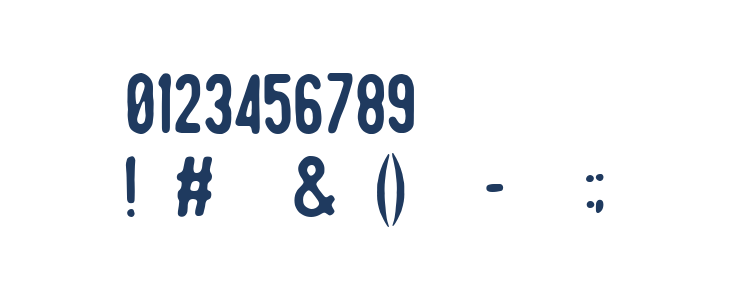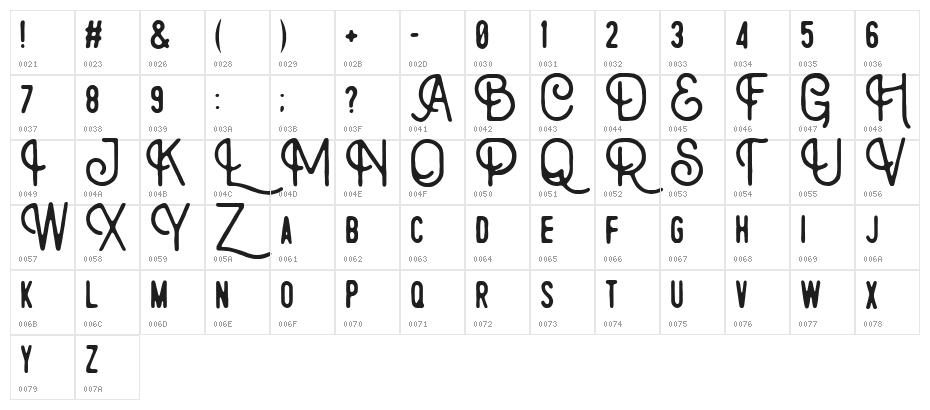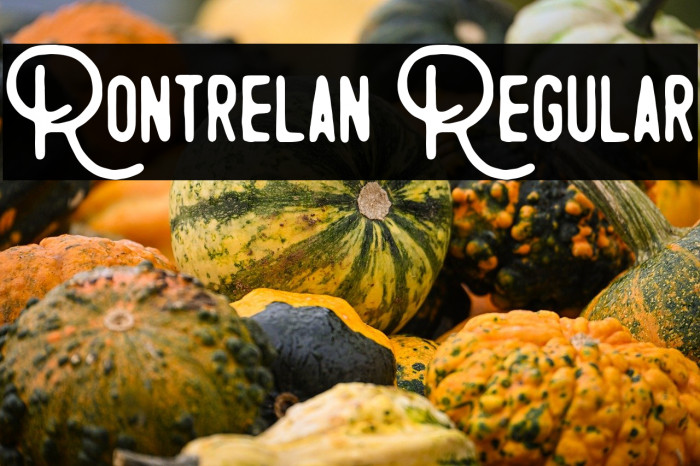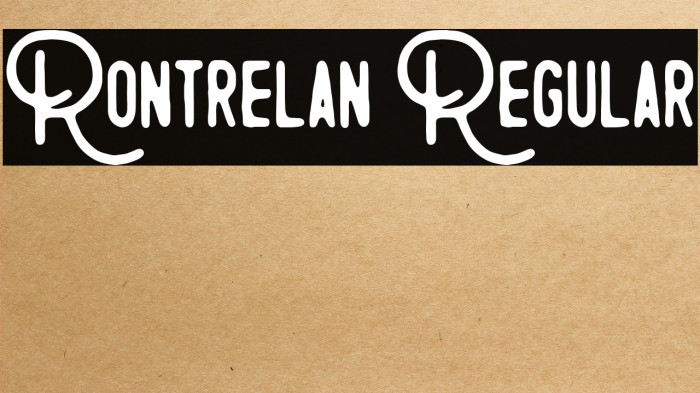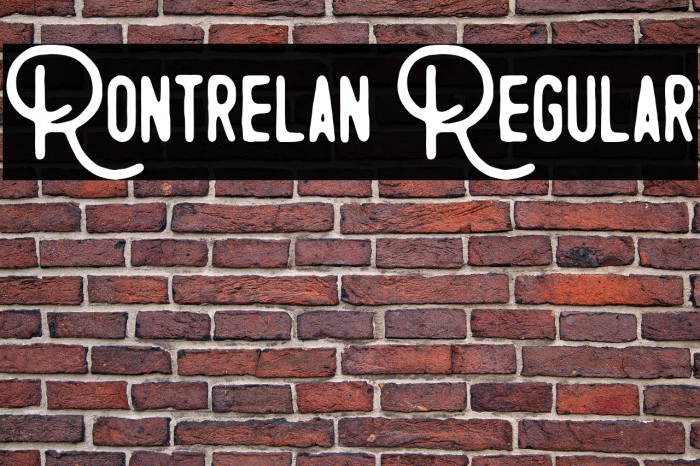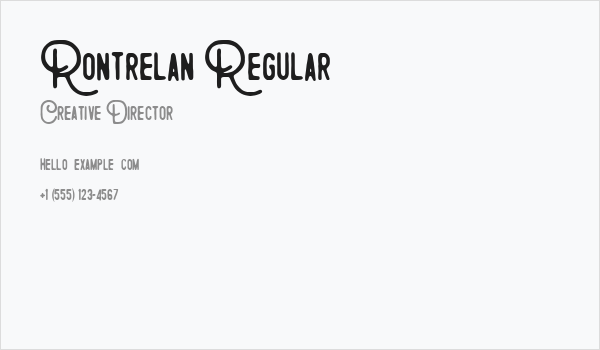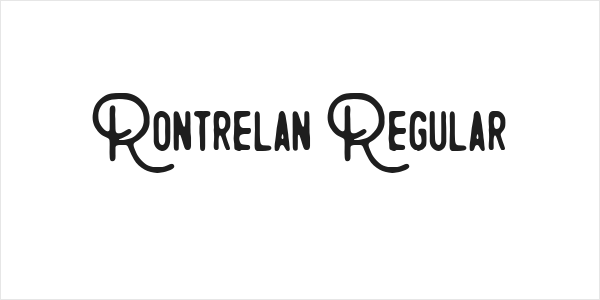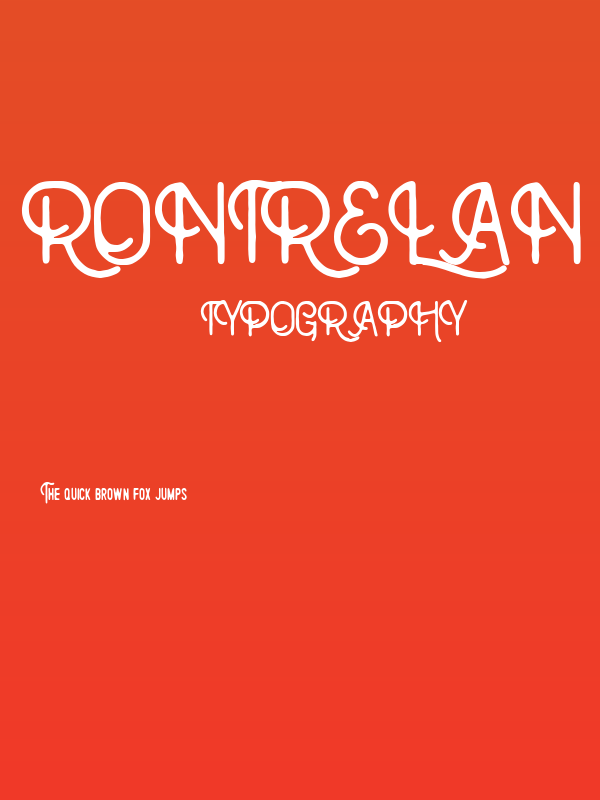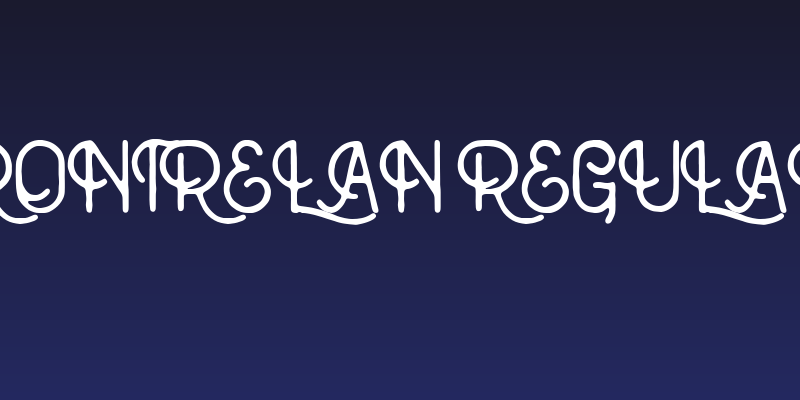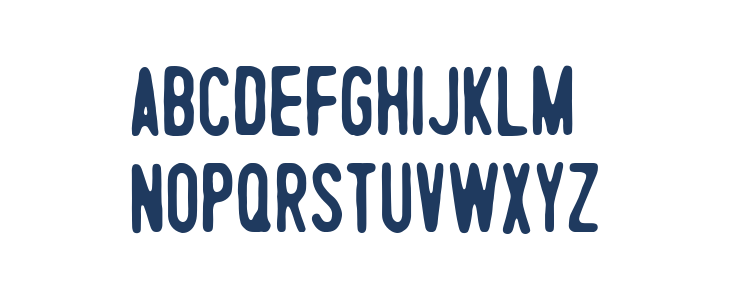
Rontrelan Regular Font
Rontrelan Regular Description
This font features a playful and artistic style, combining elements of both script and bold display fonts. The uppercase letters have a whimsical, hand-drawn quality with unique curls and loops, giving them a lively and dynamic appearance. The lowercase letters maintain this playful aesthetic, while the numbers and special characters are bold and rounded, providing a strong visual impact. The overall design is cohesive and eye-catching, making it suitable for creative and informal projects.
| Overall Style | Playful, Artistic |
| Proposed Projects | Ideal for children's book covers, playful branding, greeting cards, and creative posters. |